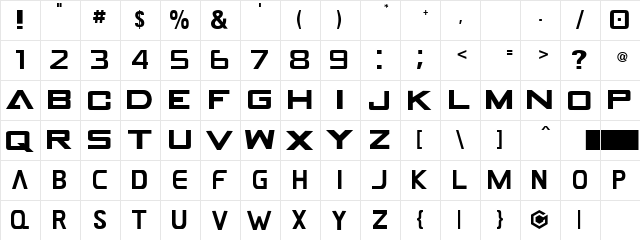
GAMECUBEN DualSet Font Preview
GAMECUBEN DualSet
GAMECUBEN DualSet Font Details
| Style | DualSet |
Design Context for GAMECUBEN Typeface
GAMECUBEN is a composed and adaptable typeface that performs quietly and consistently across a wide range of design contexts.